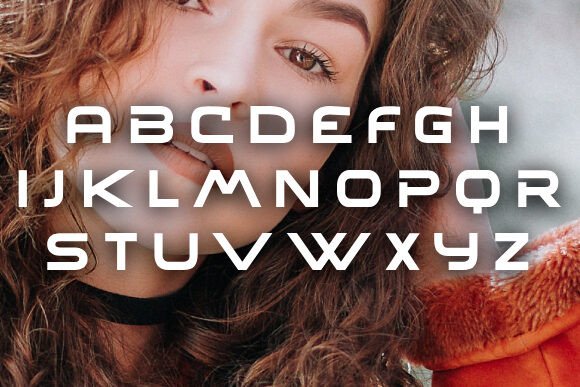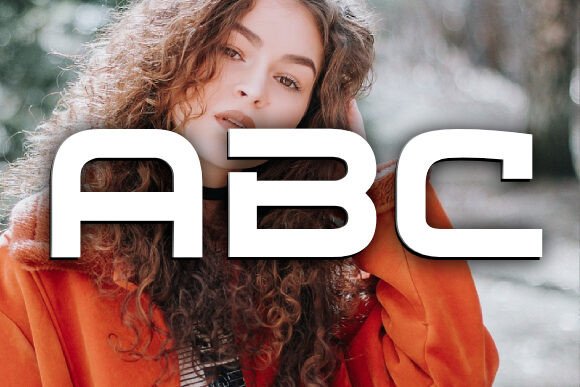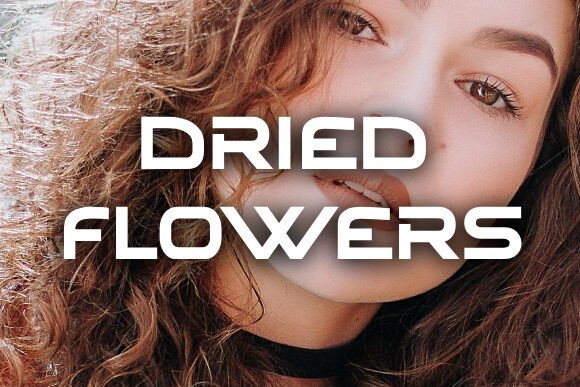
Introduction to Remscheid Font
Do you remember the thrill of designing a new project, and the excitement of seeing your ideas come to life? It’s that moment when the perfect font can make all the difference. For designers, finding the right font can be a game-changer, and that’s where the Remscheid Font comes in.
This stylish Sans Serif typeface is designed to give your designs a unique touch, perfect for posters, flyers, and even t-shirts. With its clean lines and modern aesthetic, the Remscheid Font is an excellent choice for any creative project. Whether you’re working on a high-quality brochure or a free download for a design resource, this font is sure to impress.
What makes the Remscheid Font truly valuable is its versatility. Its transparent background makes it easy to use on any design, and its high-quality design ensures that your project will stand out from the crowd. Whether you’re a seasoned designer or just starting out, the Remscheid Font is a valuable addition to your design resources.
Key Features of Remscheid Font
- High-quality design: Remscheid Font offers a unique and stylish aesthetic, perfect for creative projects.
- Transparent background: The font features a transparent background, allowing for seamless integration with various design elements.
- High-resolution design: The font is designed at a high resolution of 300 DPI, making it ideal for print and digital applications.
- Unique characteristics: Remscheid Font features a distinctive and modern design, with unique letterforms and typography.
- Size: The font is available in a range of sizes, from 12pt to 72pt, allowing for flexibility in design applications.
Honest Review: Remscheid Font
I recently stumbled upon the Remscheid Font, and I must say, it’s a fantastic addition to any designer’s toolkit. The high quality of this font is immediately apparent, making it a great choice for any creative project.
- ✨ Easy to use and customize, the Remscheid Font is perfect for designers looking for a versatile font.
- ✨ The transparent background feature is a huge plus, allowing for seamless integration into any design.
- ⚠️ The font may not be suitable for all types of designs, particularly those requiring a more conservative or traditional look.
- ⚠️ Some users may find the font’s unique style takes some getting used to.
Overall, I’m really impressed with the Remscheid Font. It’s a fantastic design resource that can add a touch of creativity to any project. With its high quality and transparent background, it’s a great choice for designers looking to take their work to the next level.
Tips for Getting the Most Out of Remscheid Font
Here are some tips for getting the most out of Remscheid Font:
– Use Remscheid Font with a transparent background to create a unique design element.
– Experiment with different font sizes and colors to create a high-quality design.
Remscheid Font is a versatile design resource that can be used in a variety of creative projects, including:
– Business cards and brochures
– Social media graphics and advertisements
– Branding and marketing materials
– Digital art and illustrations
Can I customize the Remscheid Font to have a transparent background, and what are the technical details involved?
Yes, the Remscheid Font can be customized to have a transparent background, which is useful for design projects that require a high level of flexibility. To achieve this, you’ll need to use a font editor or a design application that supports font manipulation. The technical details involve modifying the font’s glyph data and applying a transparent color to the background, which can be done using font editing software or programming languages like Python or JavaScript.